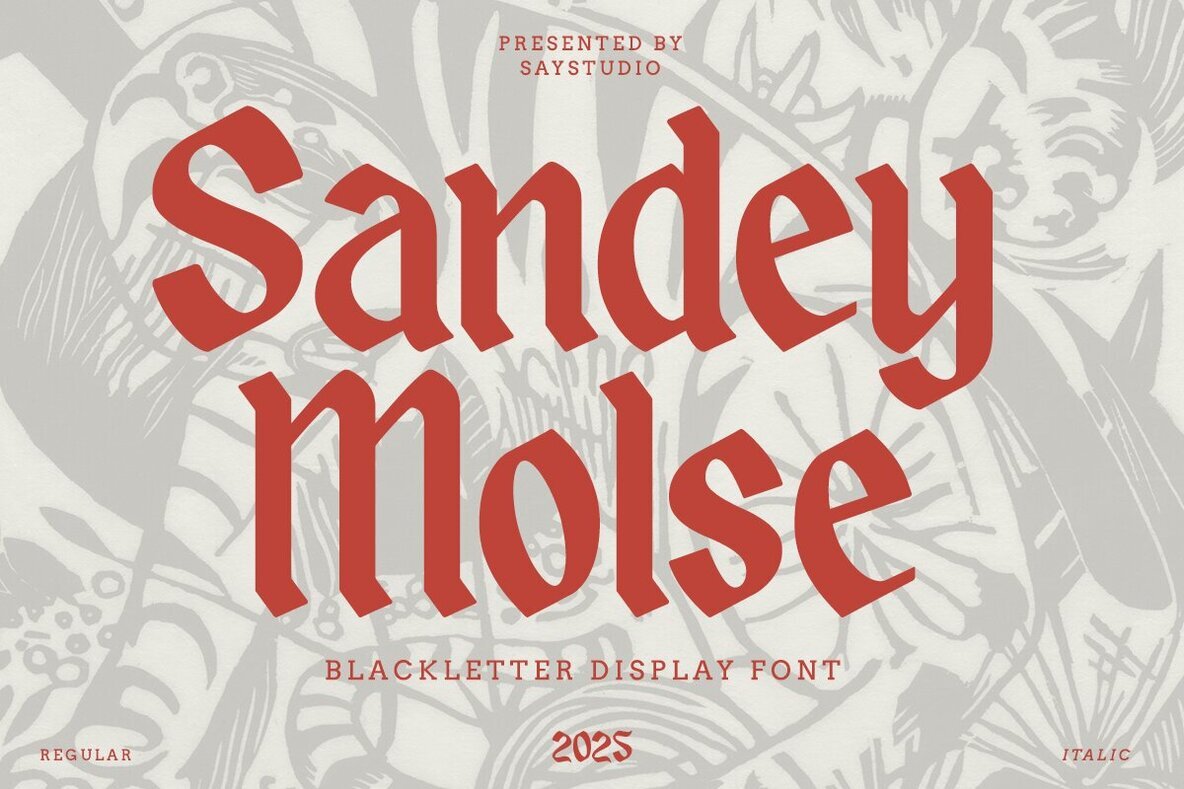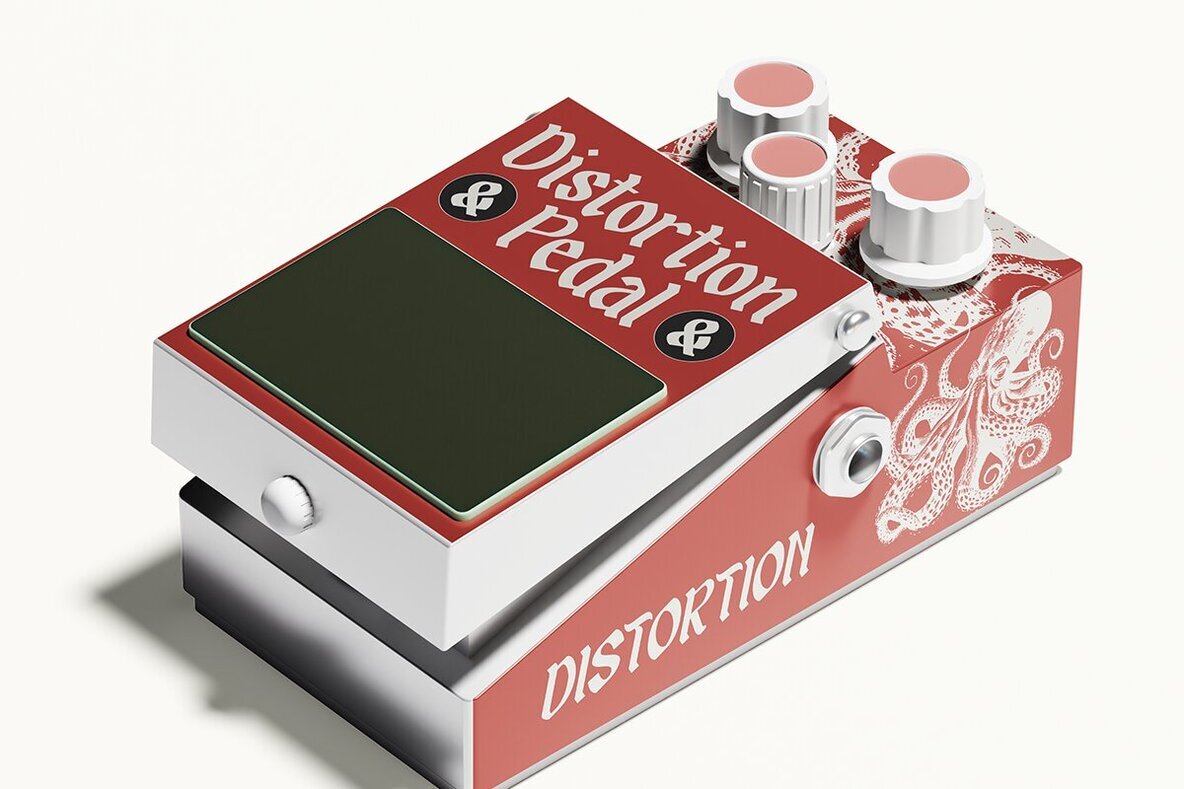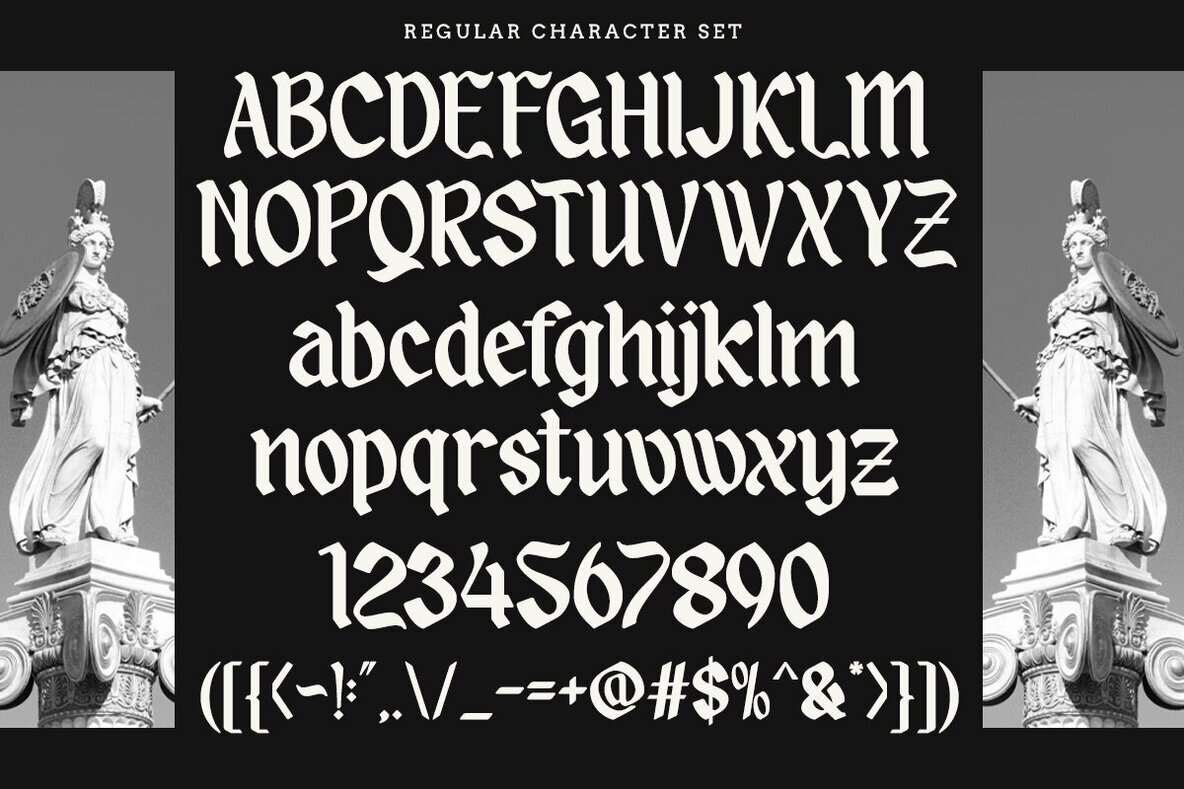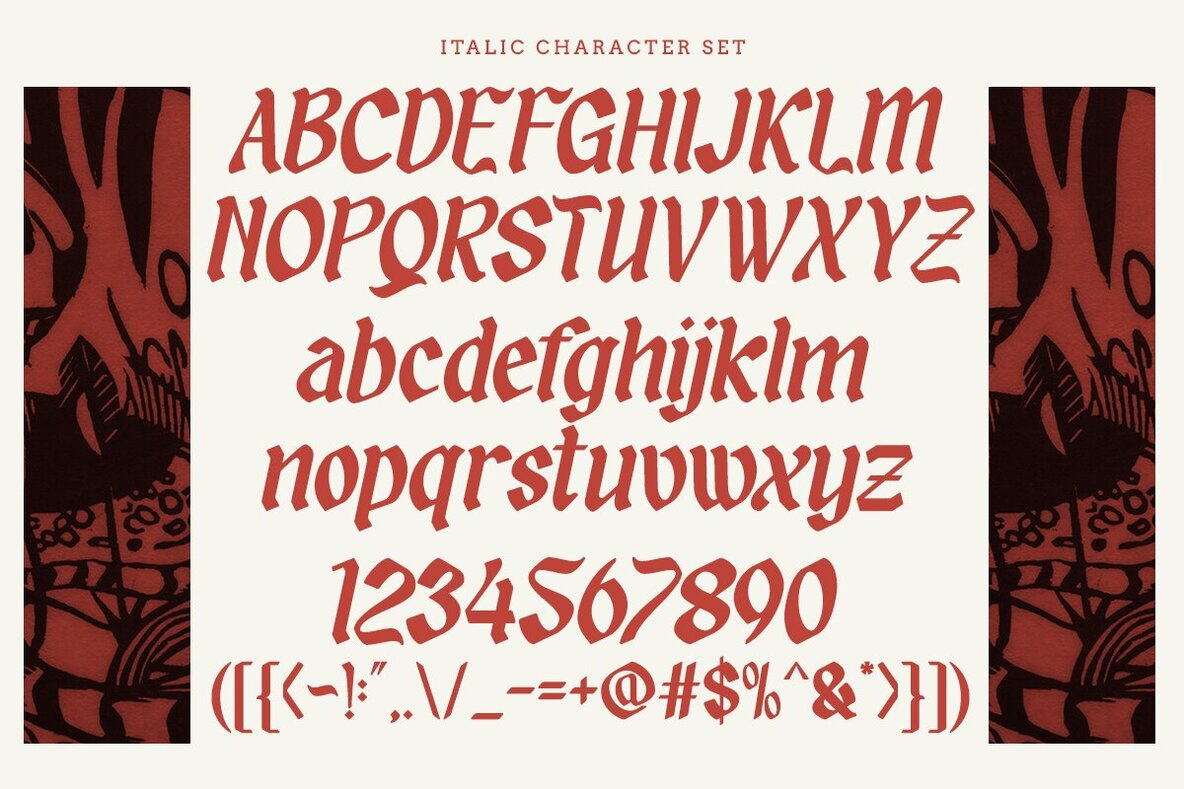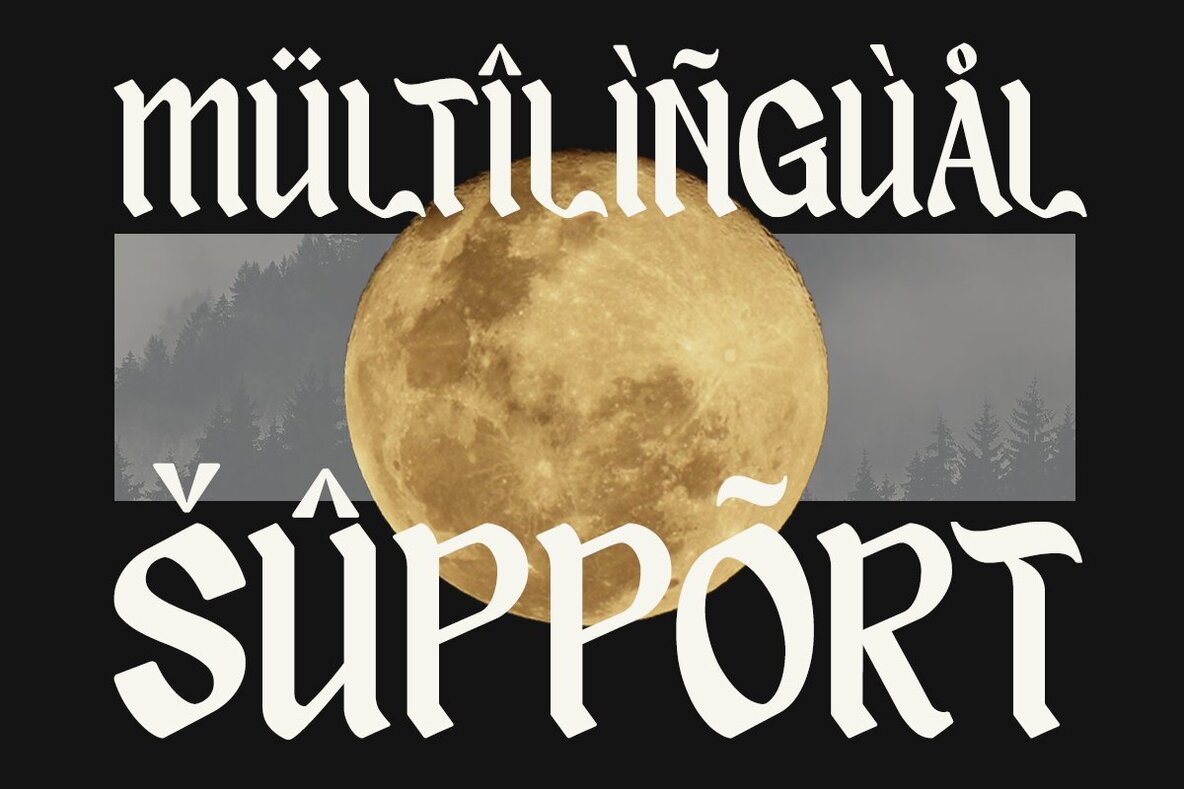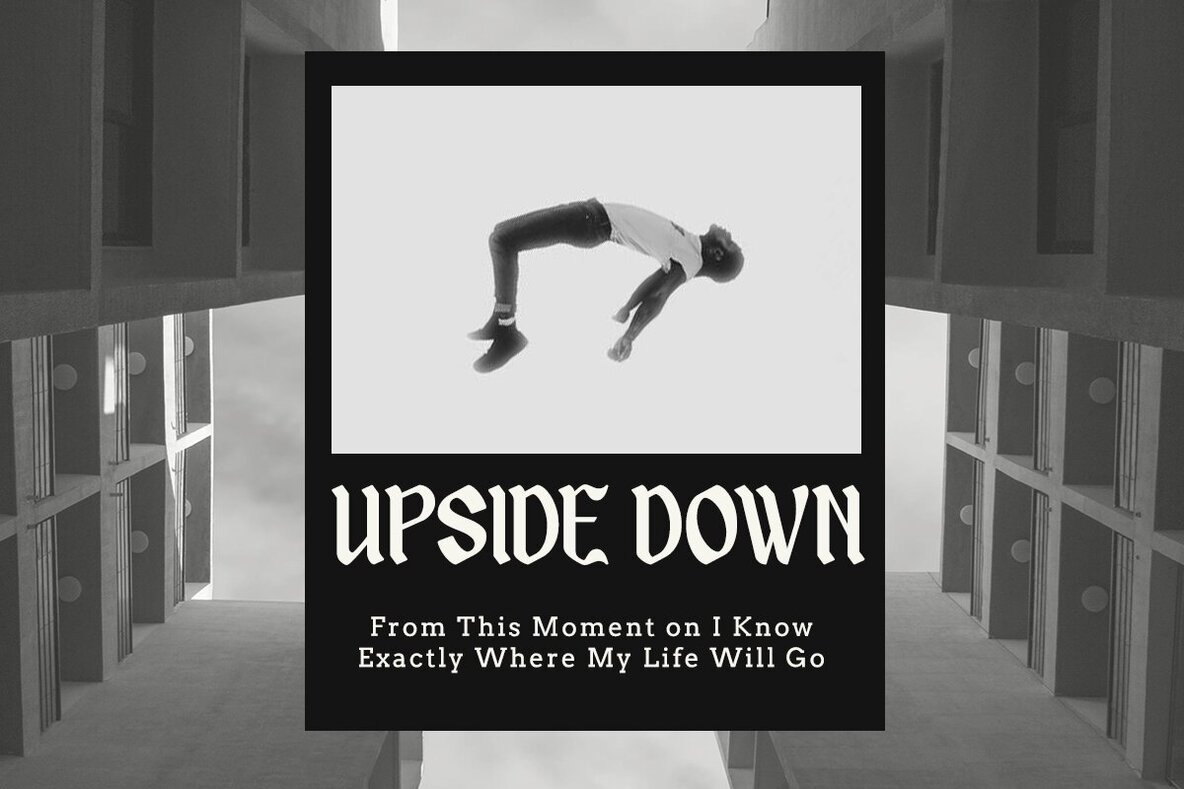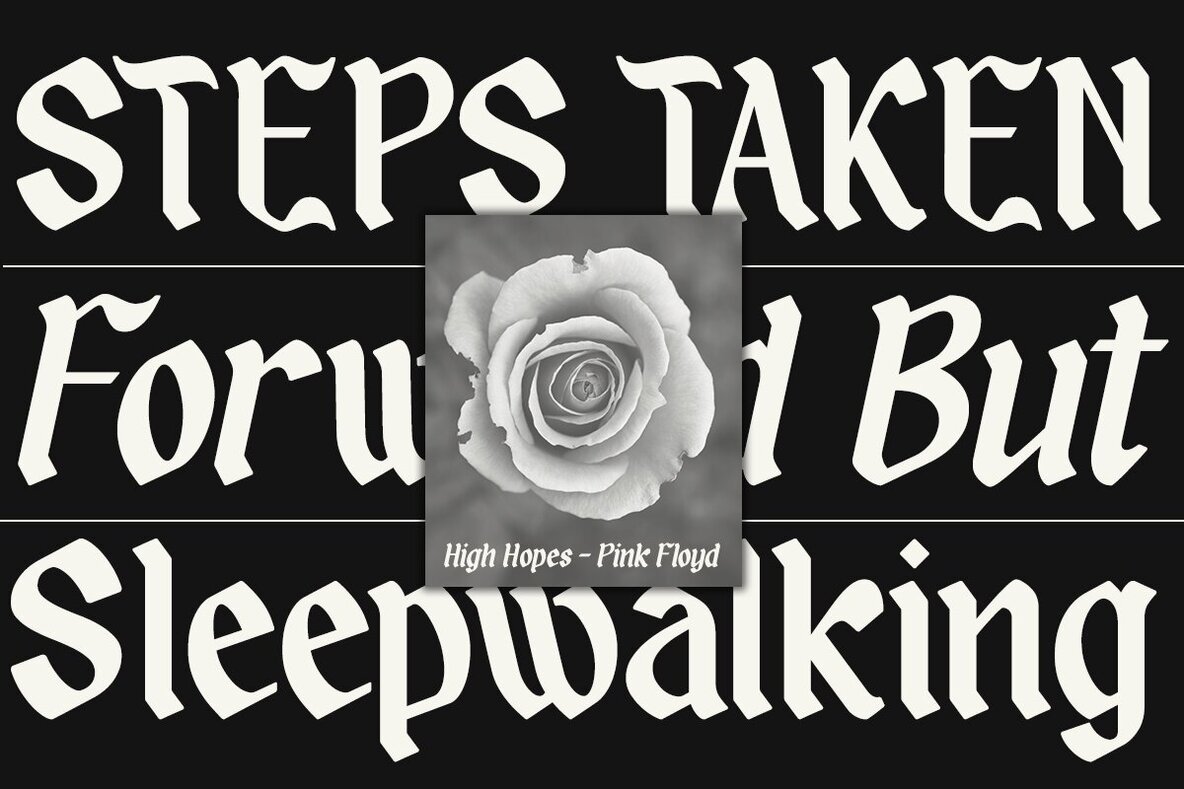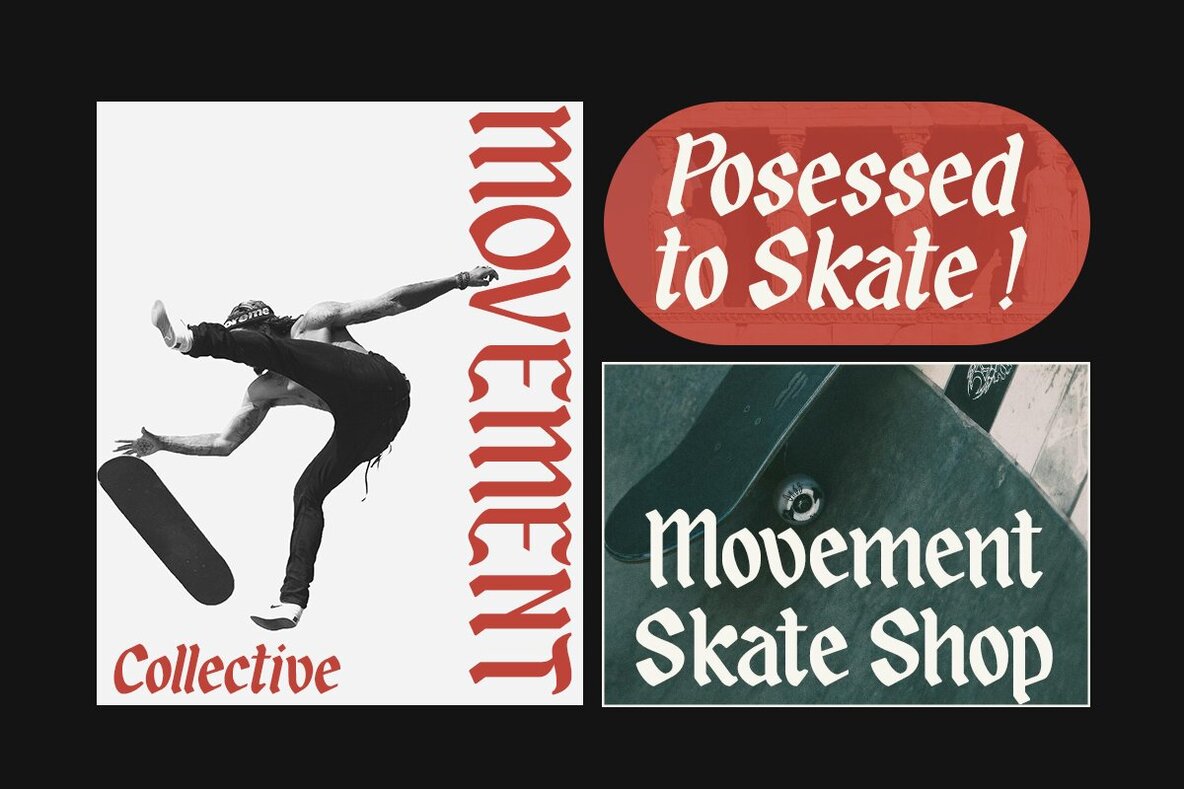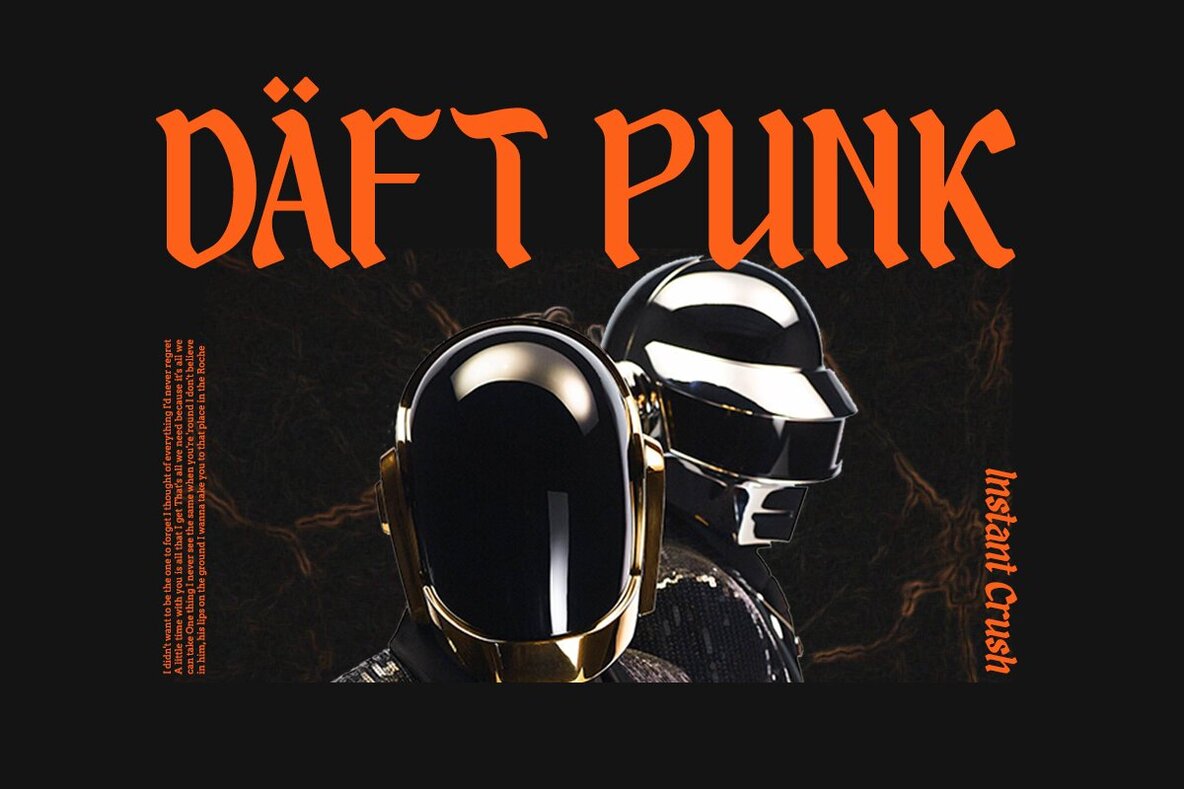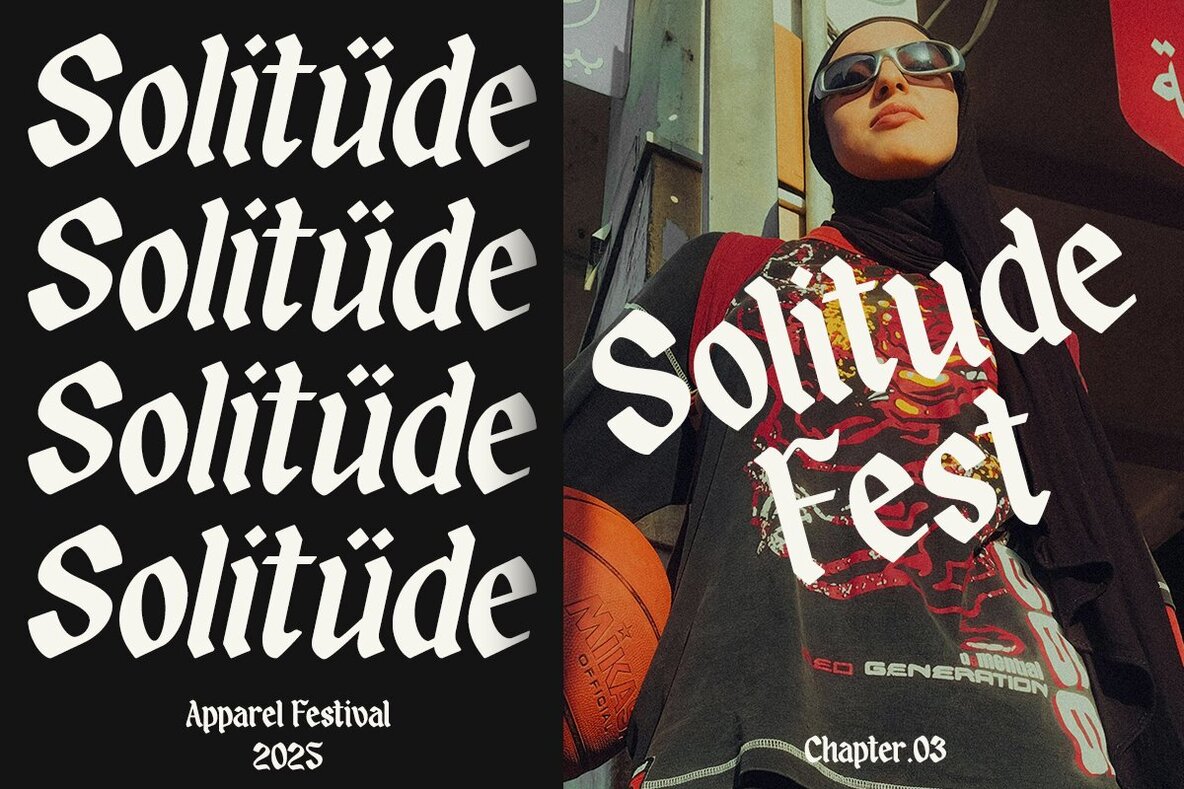
Sandey Molse Font
Sandey Molse is a striking Blackletter display typeface that adds a bold and refined touch to any project. With its unique diagonal slice on each glyph, this typeface infuses modern sophistication with a hint of rigidity, making it an excellent choice for those who want their designs to stand out. Its design ensures effortless legibility, making it perfect for headlines, logos, and branding.Sandey Molse Typeface